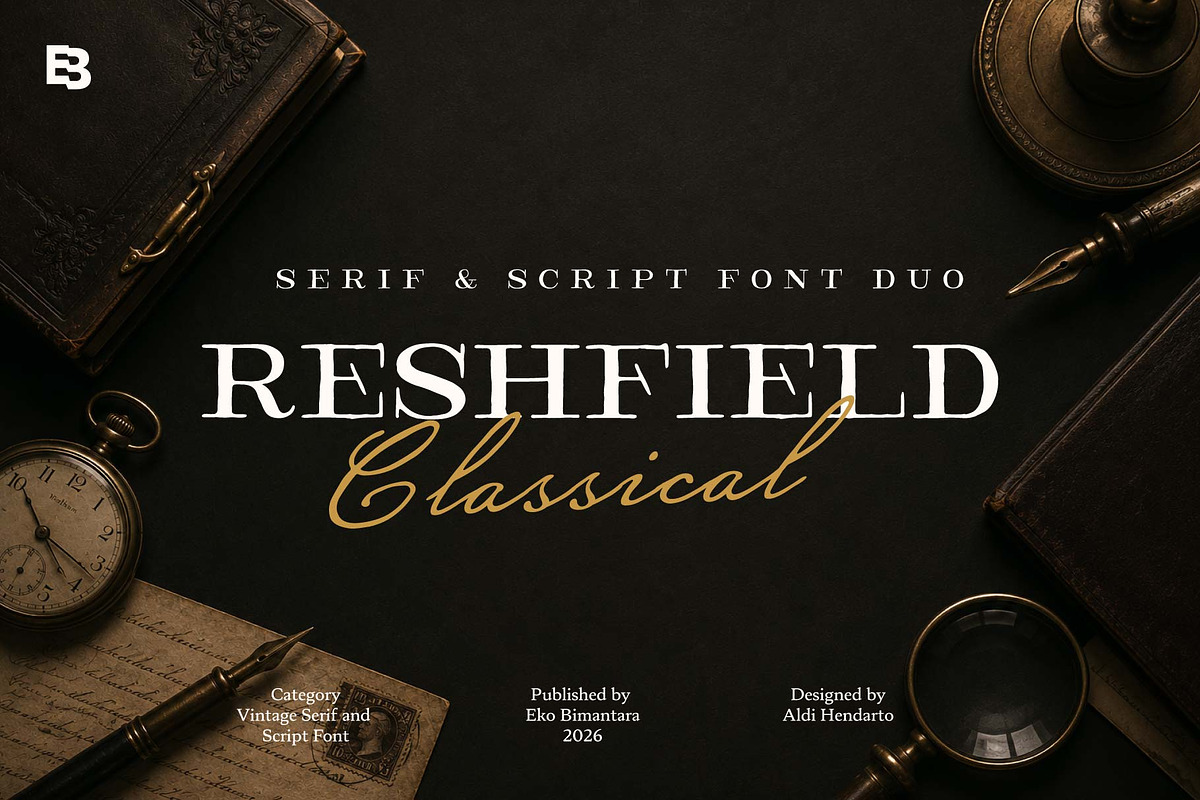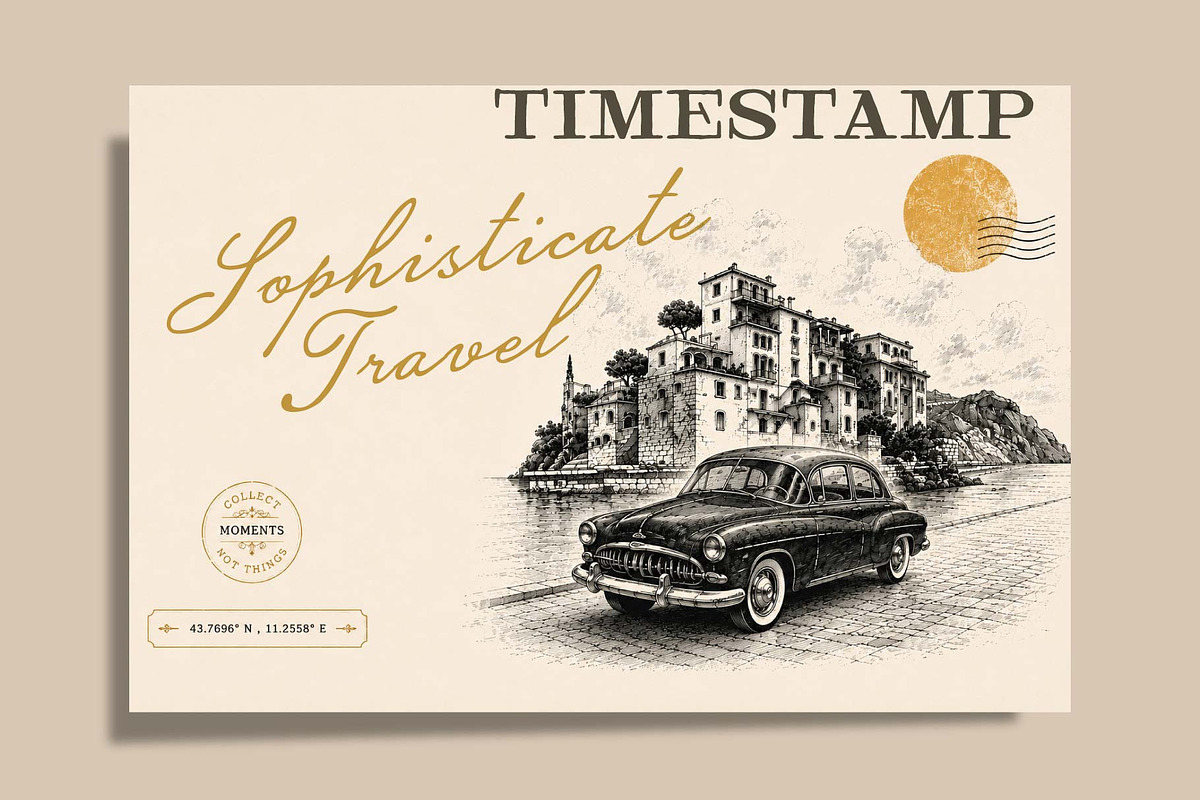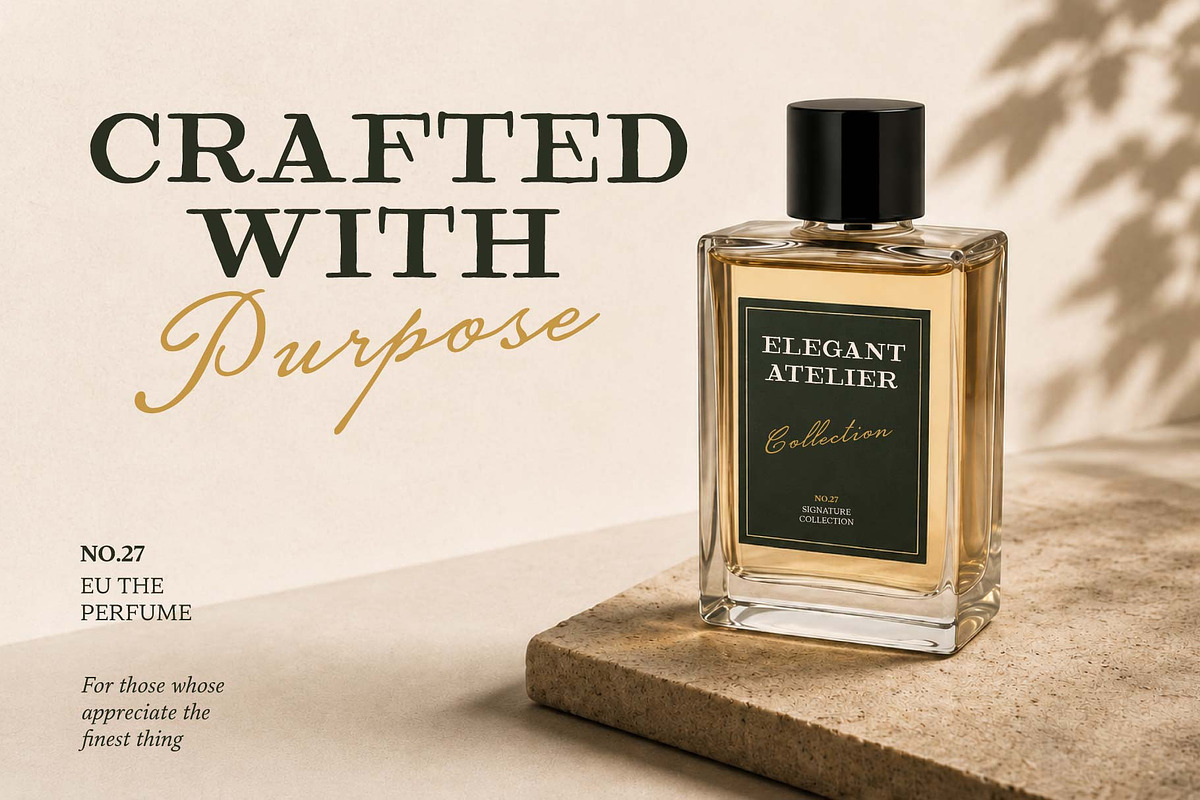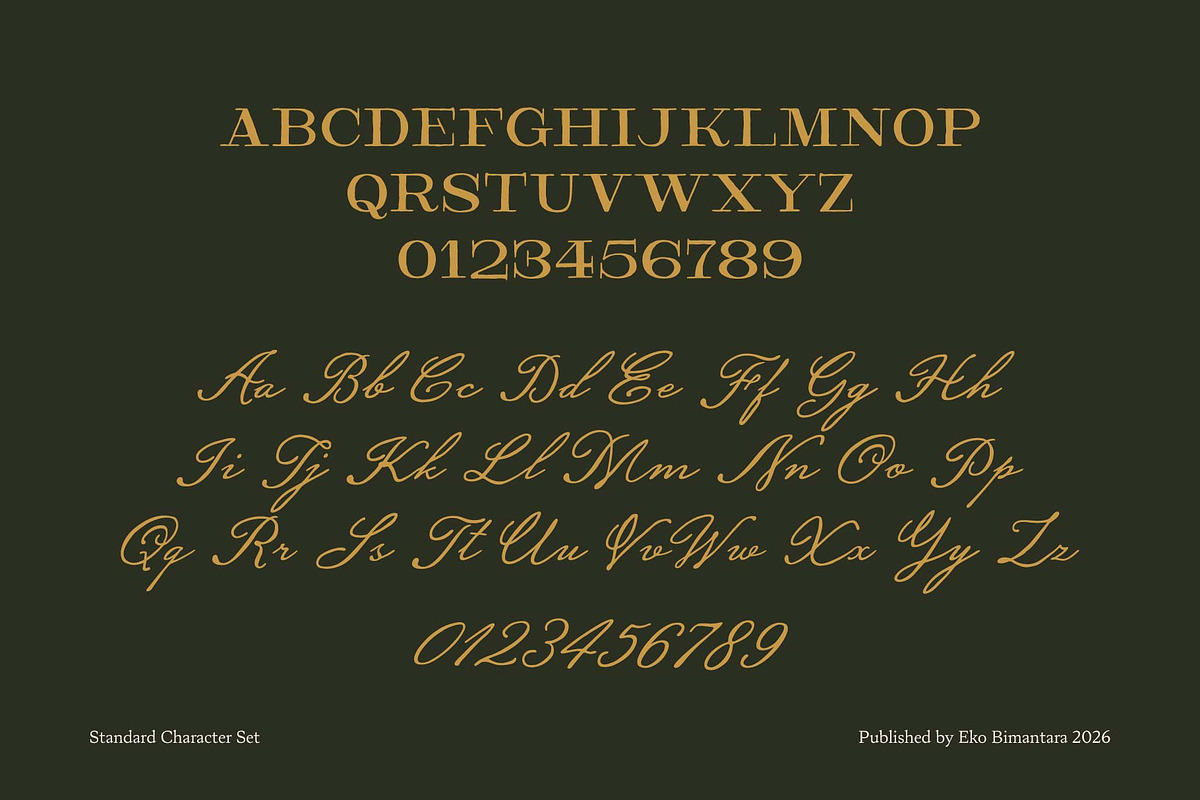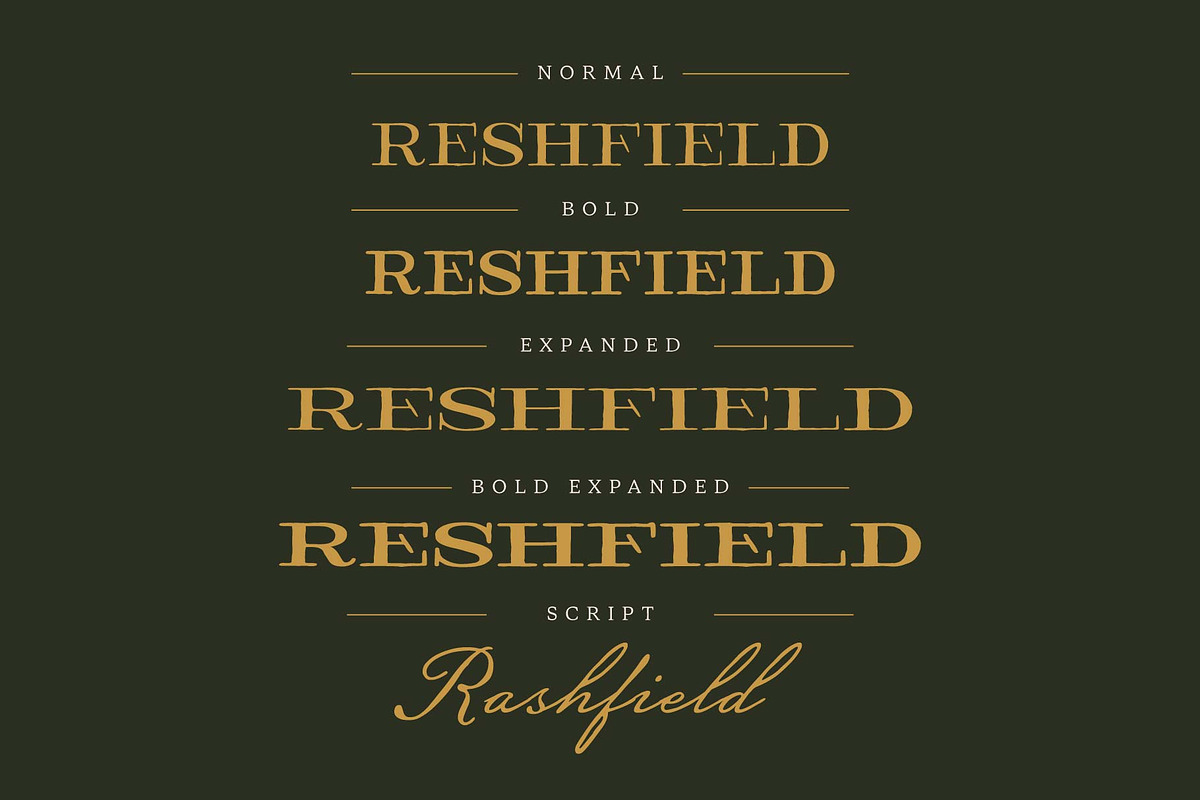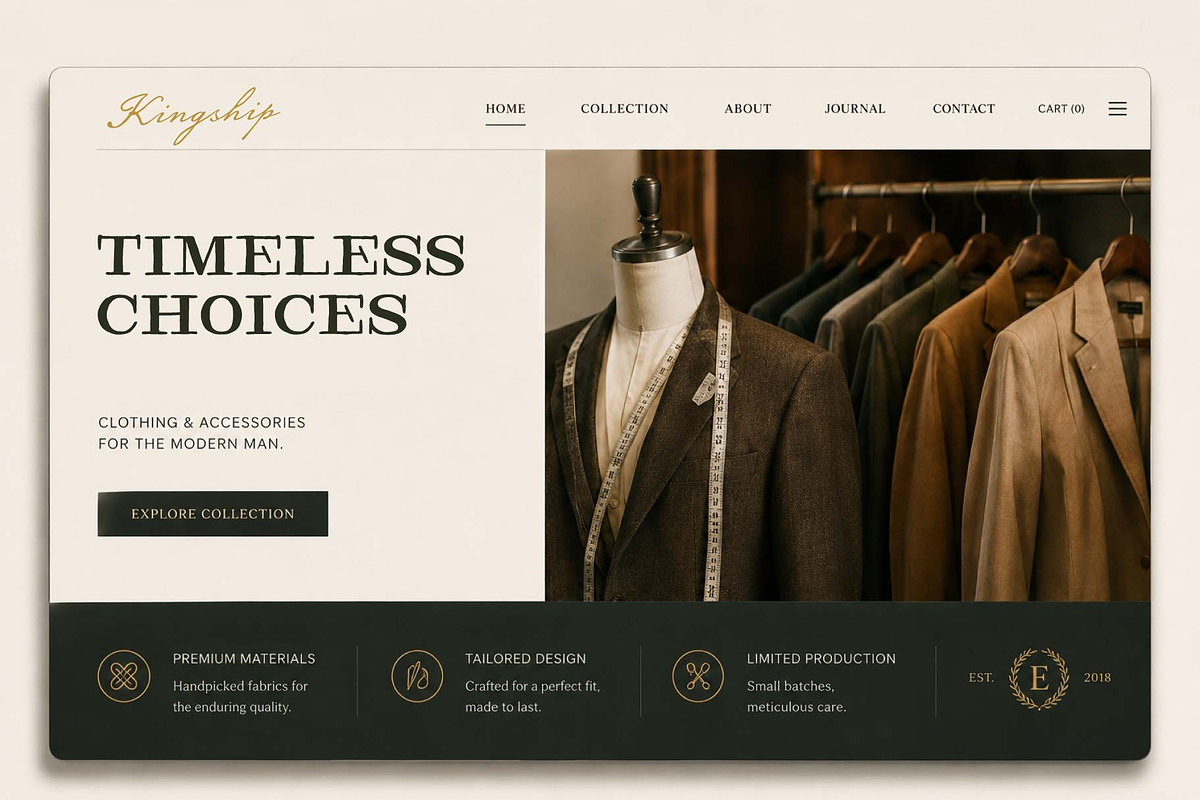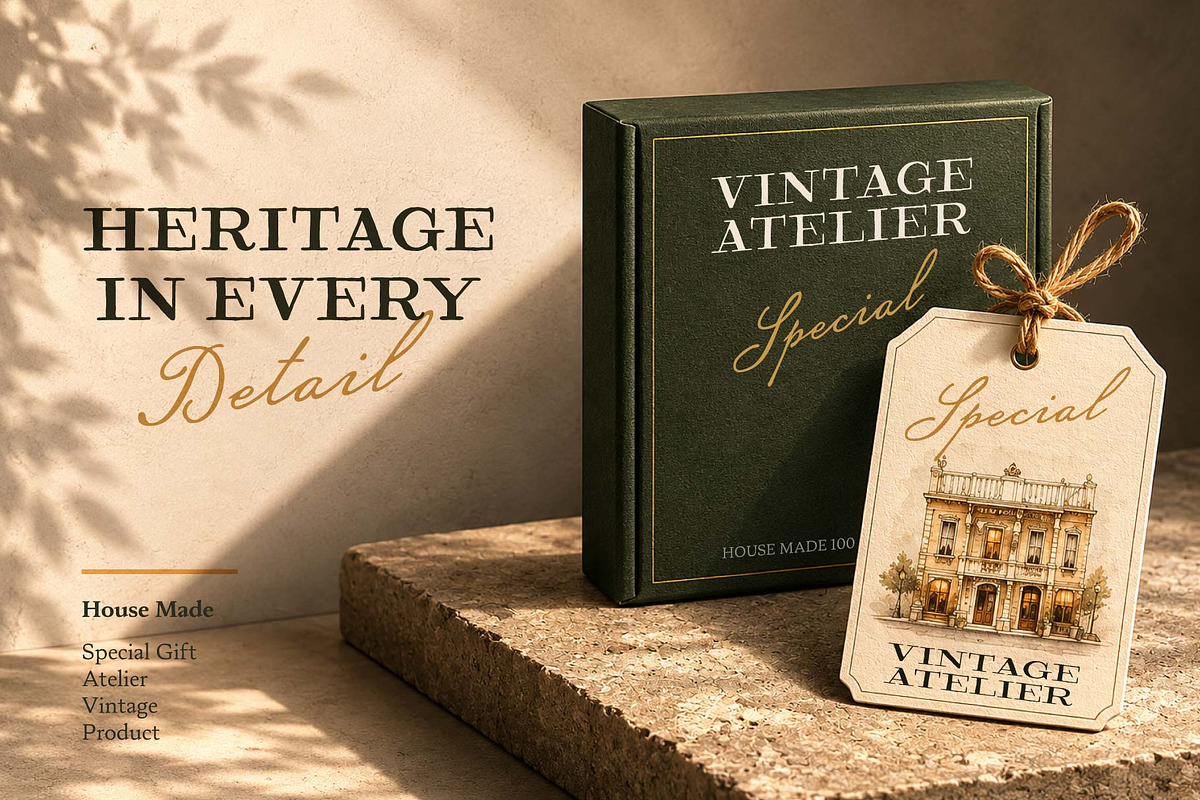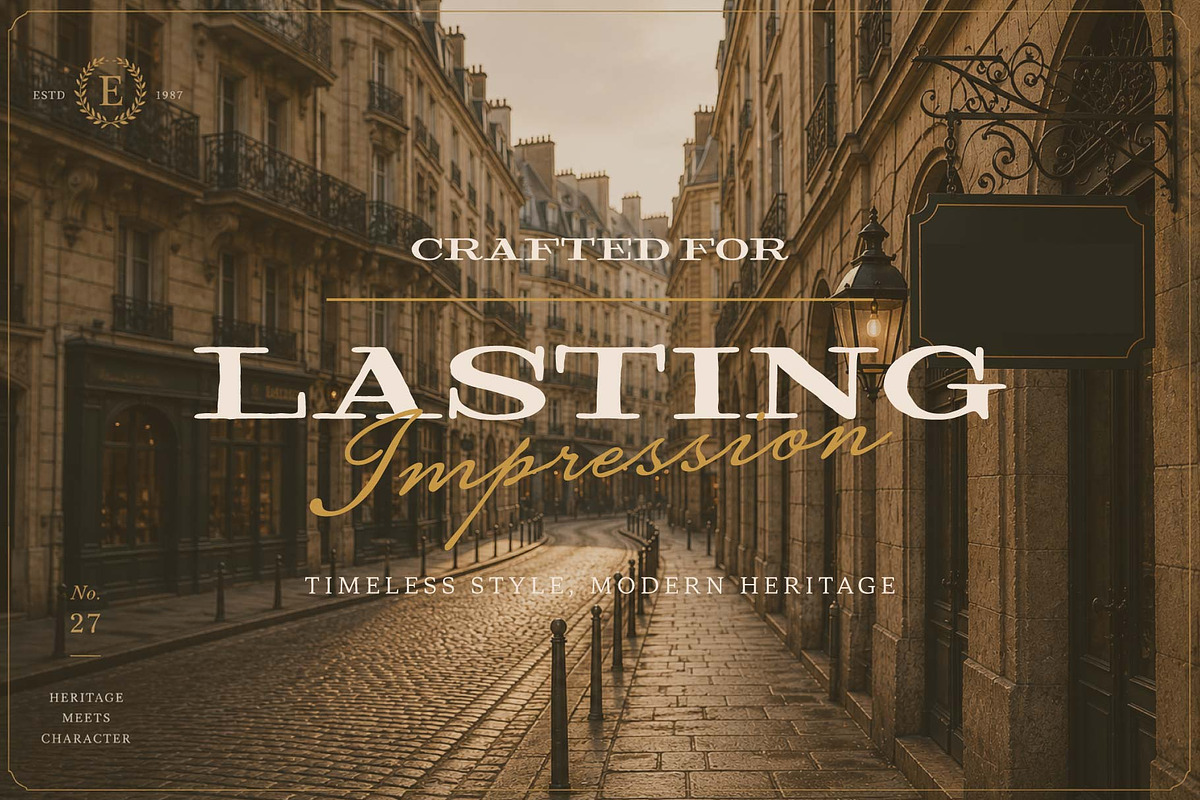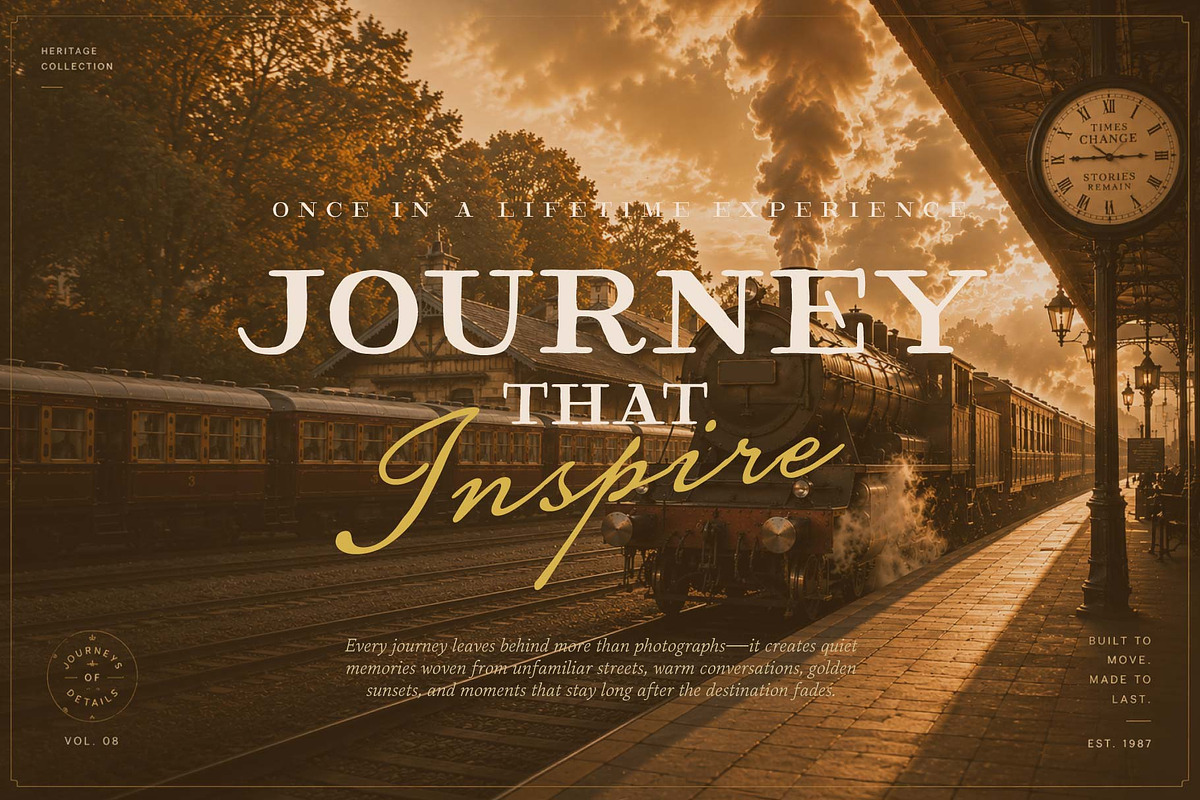
Reshfield; Vintage Script and Script
Reshfield is a sophisticated collection featuring a Vintage Serif and an elegant Script Font, thoughtfully designed to bring timeless charm and refined character to your work. Inspired by classical typography, it combines heritage-inspired details with graceful handwritten elegance, making it perfect for luxury branding, fashion, beauty, perfume packaging, editorials, weddings, logos, and premium marketing materials. Reshfield helps every design express craftsmanship, sophistication, and enduring style.